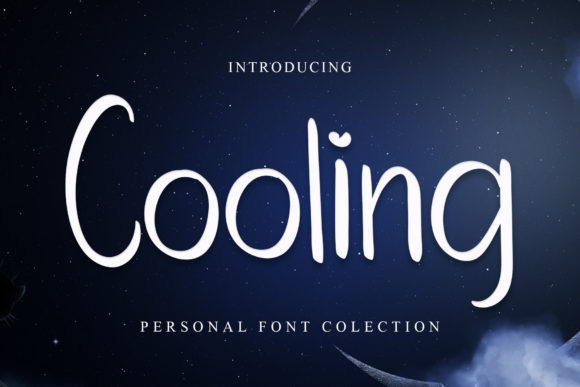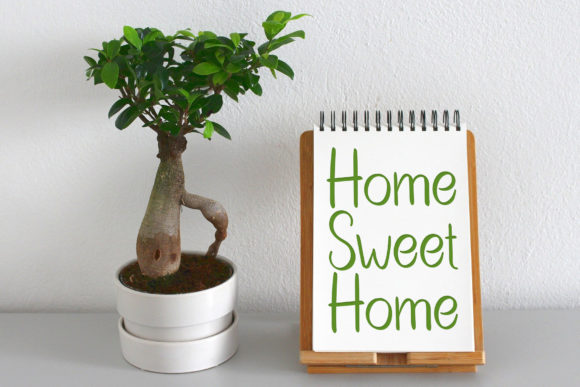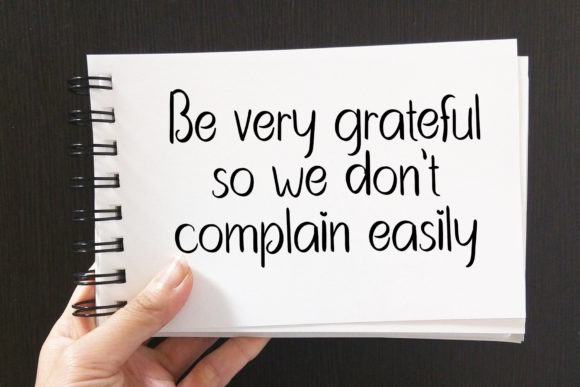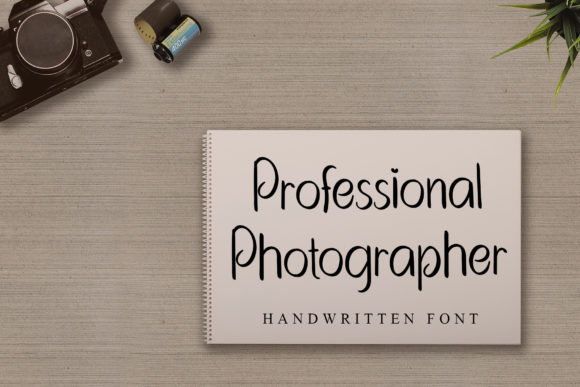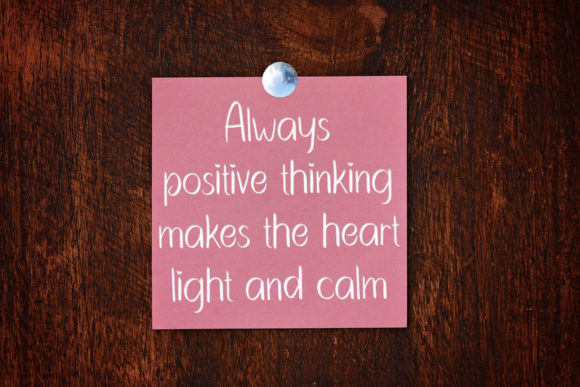
Cooling Font
About Cooling Font
Cooling is a simple and dainty handwritten font, that features a relaxed and adaptable style. It is defined by smooth curves and is perfect for fashion branding or editorial designs.